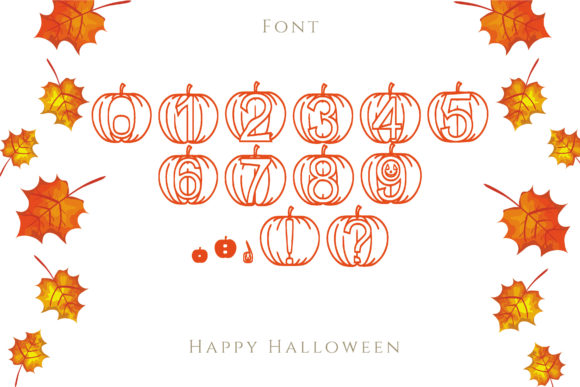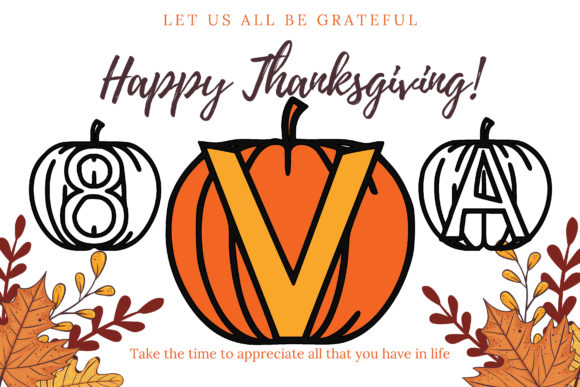
The Spooky-ooky World of Chili Pumpkin Font
As a designer, I’ve had my fair share of late nights scrolling through font libraries, searching for that perfect typeface to bring a project to life. But one font that still makes my heart skip a beat is the Chili Pumpkin Font. Its unique blend of spooky and playful elements makes it a versatile choice for any Halloween-themed project or Thanksgiving idea.
So, what makes Chili Pumpkin Font so special? Here are a few things I love:
- ✨ Unique and eye-catching design that’s perfect for Halloween or Thanksgiving projects
- 🌟 Supports a wide range of languages and special characters
- 🎃 Spooky-ooky details that add a touch of whimsy to any design
Of course, no font is perfect, and Chili Pumpkin Font has a few small quirks:
- 🤔 Some users may find the font a bit too playful or childish for certain projects
- ⚠️ Limited availability of certain OpenType features, such as ligatures or stylistic alternates
According to legend, Chili Pumpkin Font was inspired by the designers’ love of Halloween and their desire to create a font that would capture the spirit of the season. The font’s unique blend of spooky and playful elements is said to have been influenced by classic horror movies, haunted houses, and pumpkin patches.
Q: What type of projects is Chili Pumpkin Font best suited for?
A: Chili Pumpkin Font is perfect for any Halloween-themed project or Thanksgiving idea, including invitations, party decorations, and social media graphics.
Q: Is Chili Pumpkin Font easy to read?
A: Yes, Chili Pumpkin Font is highly legible, even at smaller font sizes. However, some users may find the font a bit too playful or childish for certain projects.